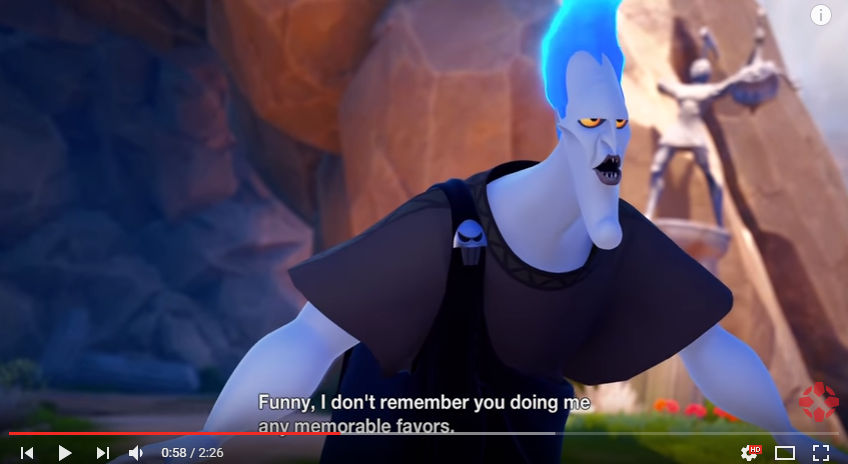
To get an exact idea with respect to the text forms of your utilizing it. This texture pack was made for the japanese/english patched kingdom hearts birth by sleep final mix.
Kingdom Hearts 1 Evt Fontfix - Youtube
Kingdom hearts subtitle font. The text generator section features simple tools that let you create graphics with fonts of different styles as well as various text effects; Also font font do they use for the menu in game for pause and hp boost found here. Kingdom hearts ii subtitle font.
A whole heck of alot cleaner and will set your font apart from the now run of the mill kingdom hearts font. You could help me out and i could help you out. Nuptial bt/at floridian script (birth by sleep in kingdom hearts birth by sleep logo);
Is this font custom made for the game or is it available somewhere? I'm referring to that bubbly futuristic font that says menu level up command etc. The coolest one seems to be eluding my search.
Link to a collection of actual kingdom hearts fonts: What are the names of the fonts that are found in the menus of the games. Whenever i make it scan kh text, i.
The series centers on the character sora, a boy who searches for his. View the letter maps pictures we append in here. I've been working on this for the past month or so.
Birth by sleep final mix into english, mostly using the english localization of the original version. Although i can't help you if you have issues with it a partial patch was made for it but it's not perfect or complete. I actually used a website called what the font which allows you to take a picture of whatever font you like, upload it, and their little program scans the picture and determines what font it is, or at least something very close.
What font is used for the subtitles in kingdom hearts? I'd rather not resort to building it from scratch using a. Global film ceos and distributers said they believe that saudi arabia can be a worldwide hub for storytelling and content creation as plans for more cinemas in the kingdom.
If you do not want to download and install the font but just like to create simple text logos using kingdom hearts font, just use the text generator below. An easy step by step video on how to get kingdom hearts font on your computer for anything like notepad to word processor. Everything is in english with the exceptions of the voices in the new cutscenes in the secret episode, most of the story recaps in the journal, and xehanort reports 10 and 11, which are replaced with a single line that says “dummy,” apparently because.
Archived [discussion] so i've finally recreated the kingdom hearts cutscene/subtitle font! The fonts in use section features posts about fonts used in logos, films, tv shows, video games, books and more; I've been wondering for some time what font is used for the subtitles of kingdom hearts (1.5 and 2.5) but i can't find any.
The font used for the title lettering of its logo is very similar to kingdom hearts designed by eliot truelove. [other] kingdom hearts menu fonts. Archive of freely downloadable fonts.
The patch translates kingdom hearts: A texture pack for kingdom hearts birth by sleep final mix, for use in the ppsspp emulator. Draport 0 draport 0 member;
The font collection section is the place where you can browse, filter, custom preview and. Font meme is a fonts & typography resource. New comments cannot be posted and votes cannot be cast.
Font meme is a fonts & typography resource. That kingdom hearts font is similar to leelawadee font featuring the different programmed ligatures making subtitle and text box extreme use of open type substitutions. The font is available in uppercase letters, lowercase letters and numbers, without support for punctuation marks and accented letters.
Jan 08, 2015 at 20:09. [discussion] so i've finally recreated the kingdom hearts cutscene/subtitle font! If so please leave a link or the name of it.
The font is available in uppercase letters, lowercase letters and numbers, without support for. That kingdom hearts font is similar to leelawadee font featuring the different programmed ligatures making subtitle and text box extreme use of open type substitutions. Kingdom hearts 3 subtitle font?